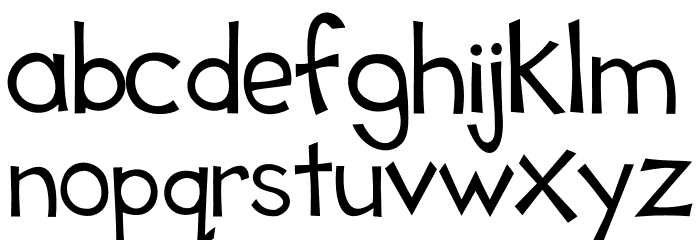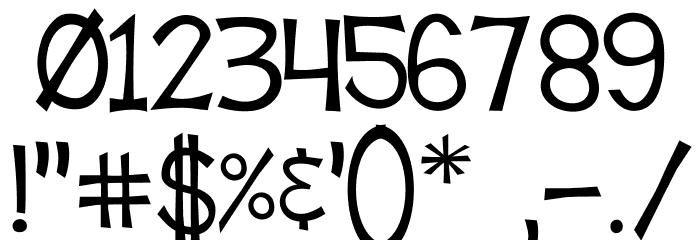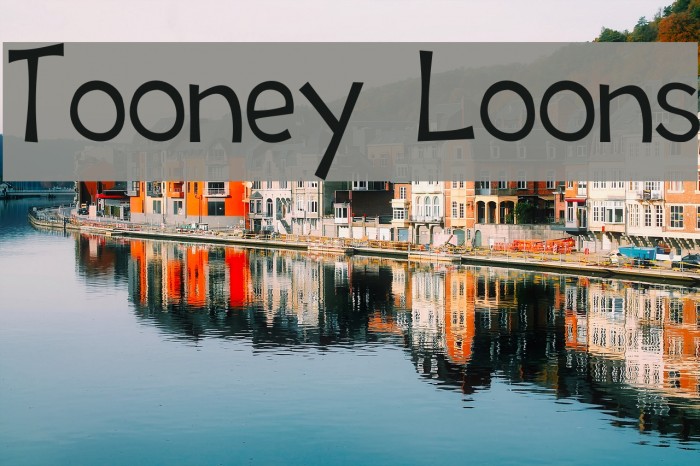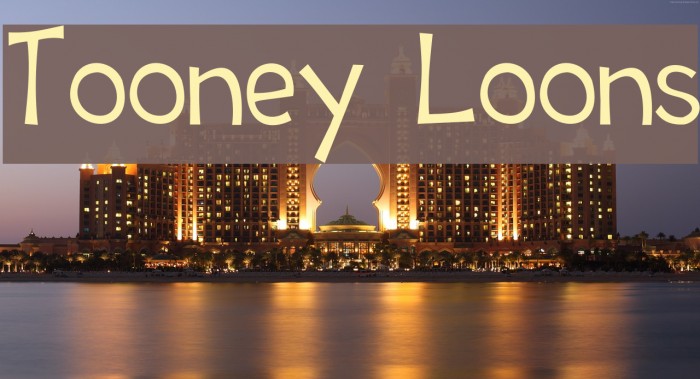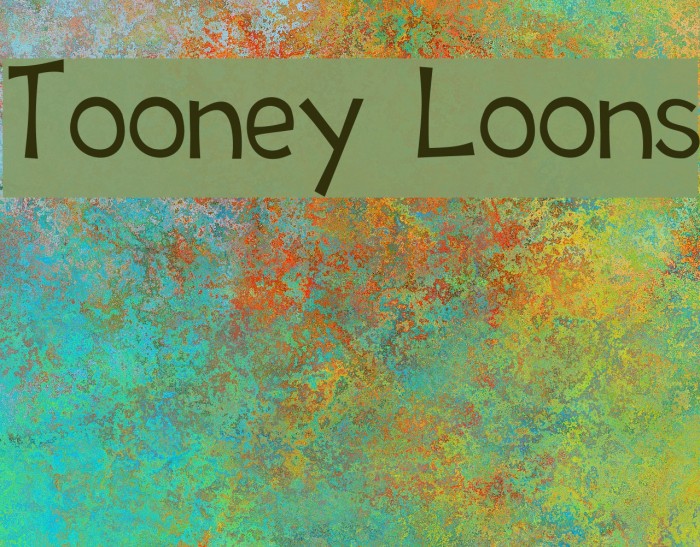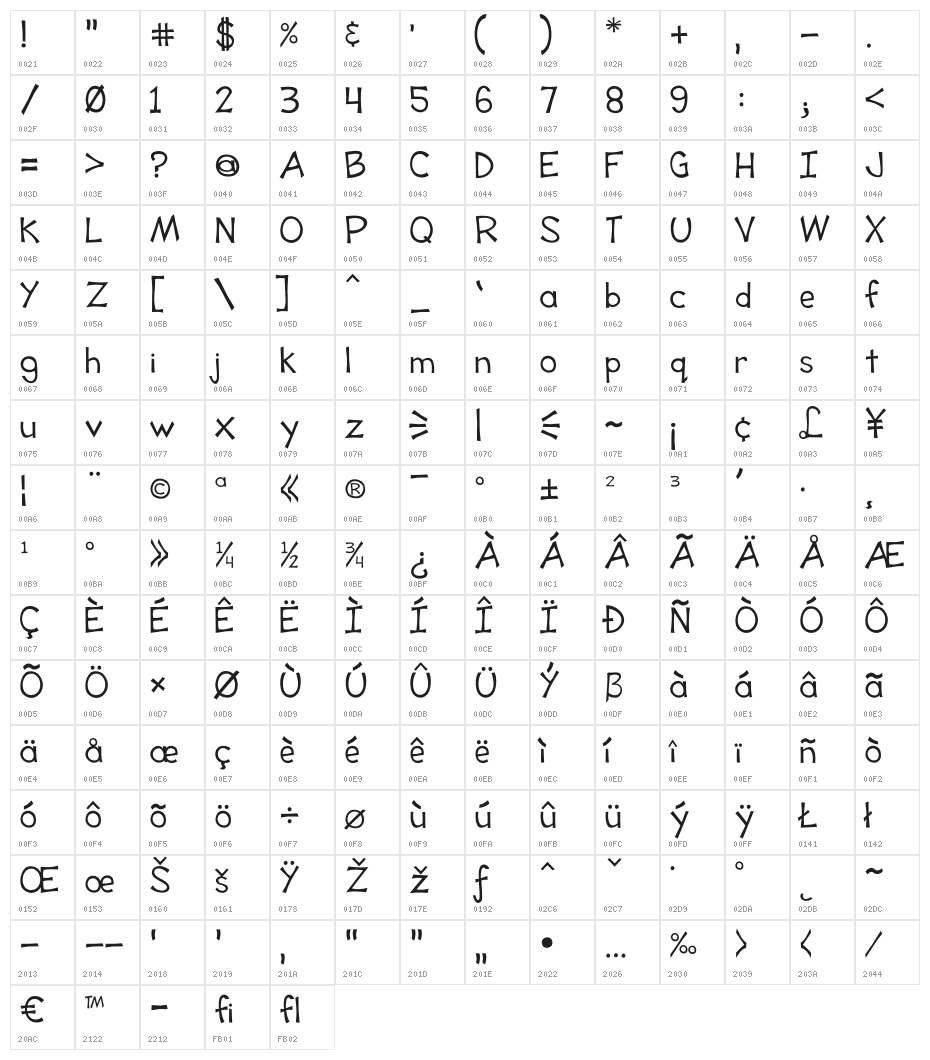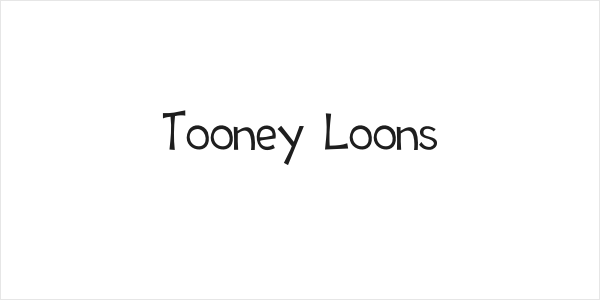
Tooney Loons Font
This playful and whimsical font features a hand-drawn, cartoonish style with irregular, slightly exaggerated letterforms. The characters have a lively and energetic appearance, with varying stroke widths that add to its informal and fun aesthetic. The uppercase and lowercase letters maintain a consistent style, while the numerals and special characters complement the overall design. This font is perfect for projects that require a lighthearted and creative touch, such as children's books, comic strips, or playful branding.
A playful, cartoonish font with irregular, hand-drawn letterforms.
- Proposed Projects: Children's books, comic strips, playful branding, greeting cards, and party invitations.
- Overall Style: Whimsical, Playful